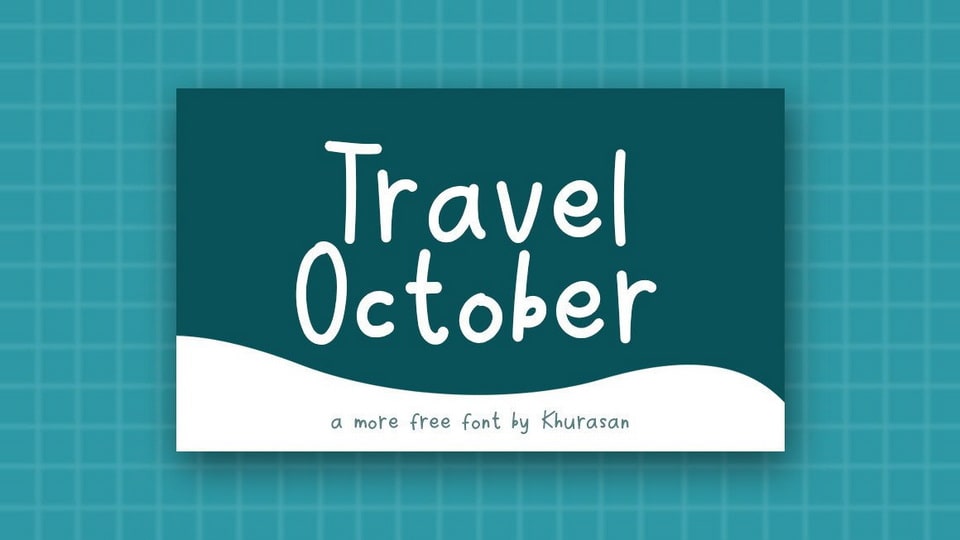
Download Travel October font, a simple and natural handwritten typeface. Travel October is perfect for posters, logos, magazines, book covers, banners, and many more.